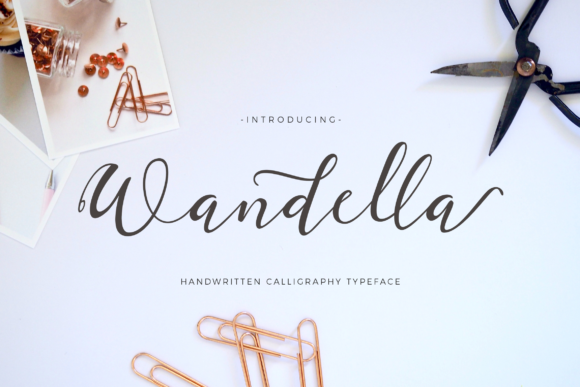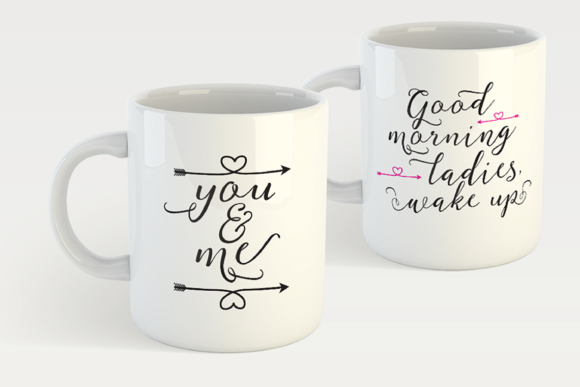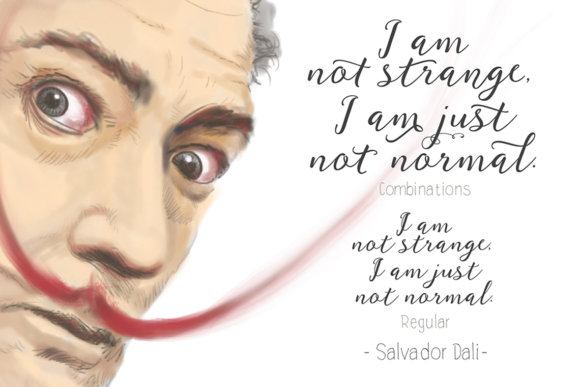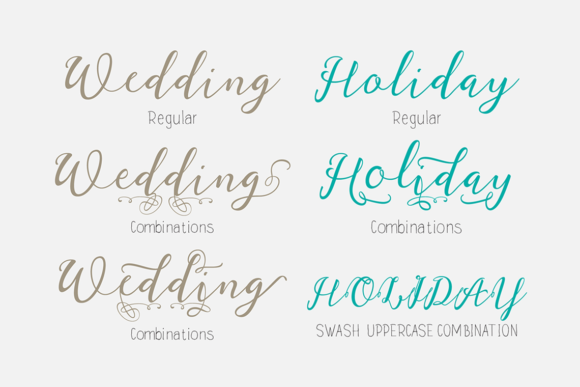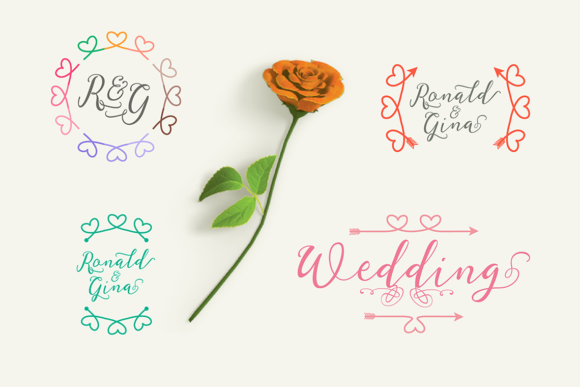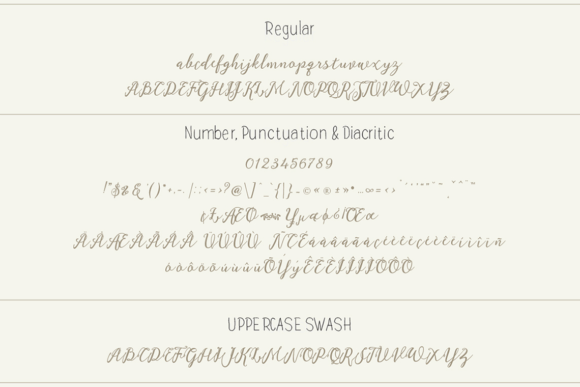
Wandella Font
About Wandella Font
Wandella is an elegant and flowing handwritten font. It is PUA encoded which means you can access all of the glyphs and swashes with ease! It features a varying baseline, smooth lines, gorgeous glyphs and stunning alternates. It maintains its classy calligraphic influences while feeling contemporary and fresh. Fall in love with Wandella and bring your projects to the highest levels!